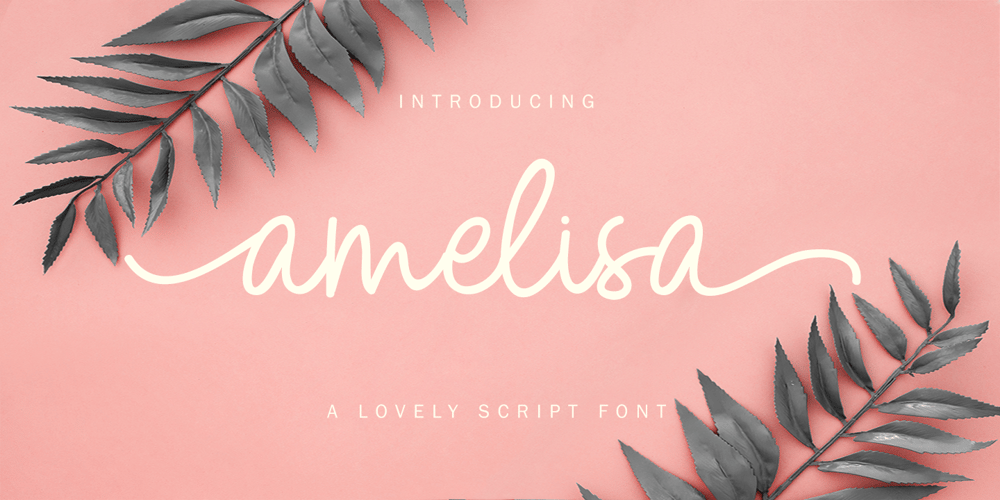
Amelisa Font Family was designed by Ditya Dewi Anandita and published by Yumna Type. Amelisa contains 1 styles and family package options. Amelisa is a beautiful monoline script font with a natural and unique design will make your project more beautiful and powerful. The font is suitable for your branding project and any design.Features: Multilingual Support PUA encoded Alternates Ligatures 52 Beautiful Stylistic